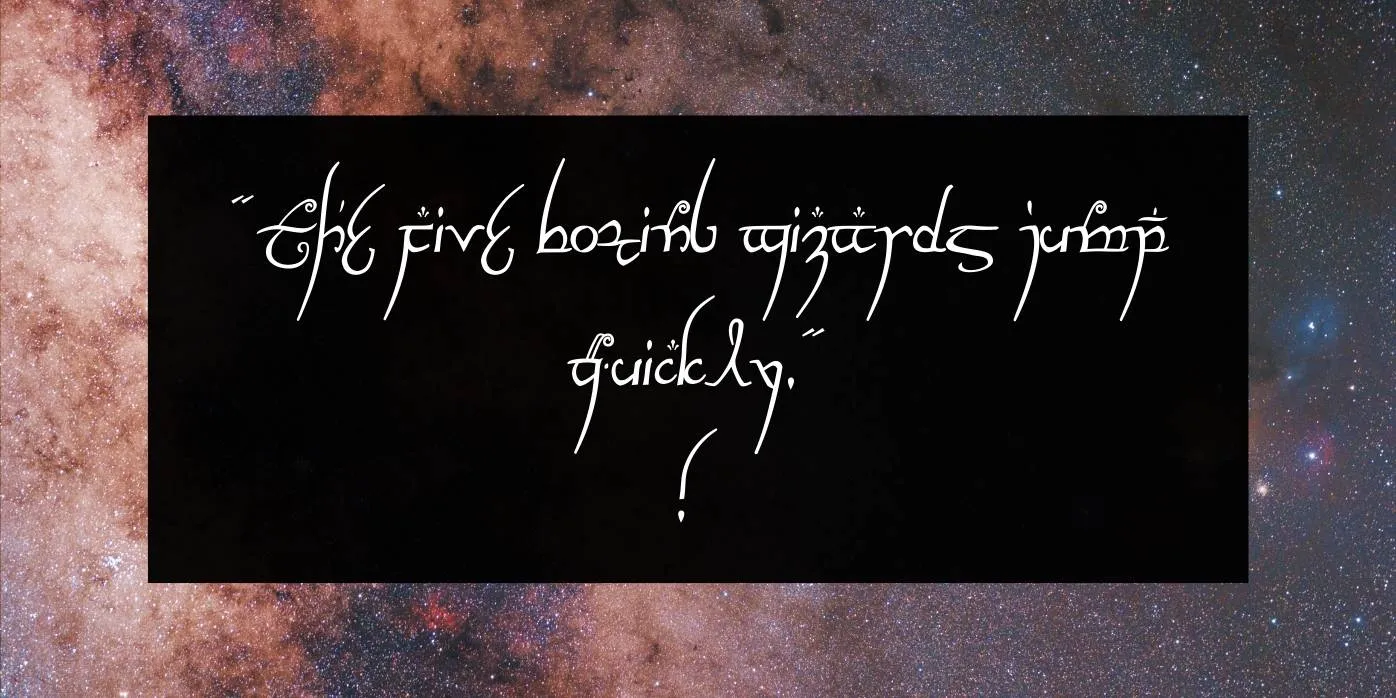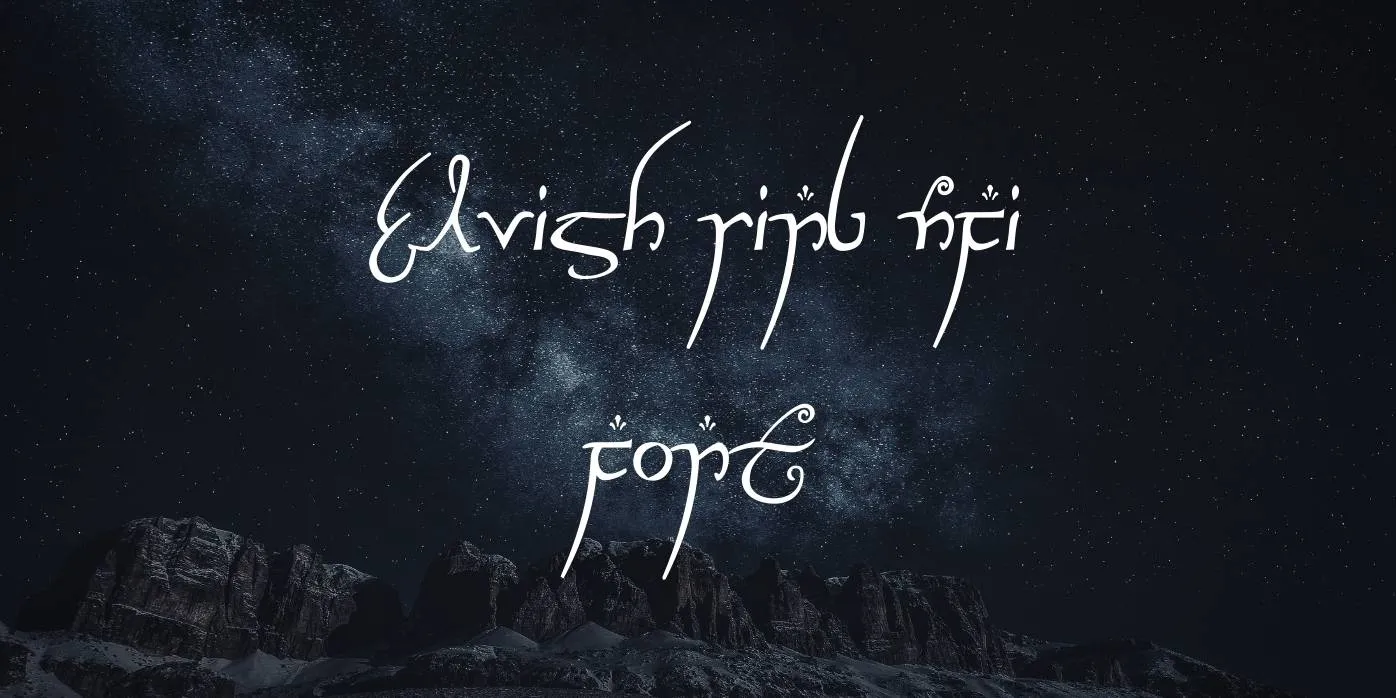
Elvish Ring NFI Font
Elvish Ring NFI Font belongs to a dingbat family that was designed by Norfok Incredible. This typeface is available in Opentype and Truetype formats. The devices that are available to support this typeface are the Mac, computers, laptops, Android, and Linux. This font is used in a lot of applications and many other devices. The characters of this typeface are stylish, thin, and attractive that have a great respect for multiple designs and projects.